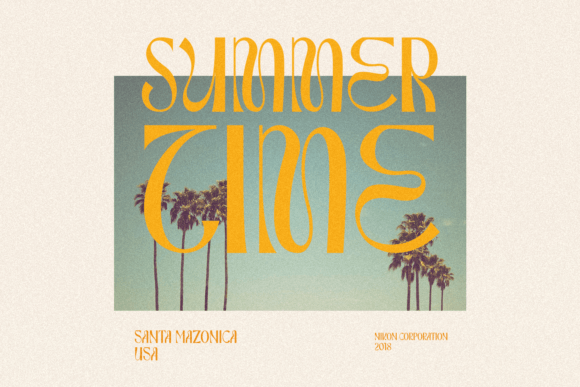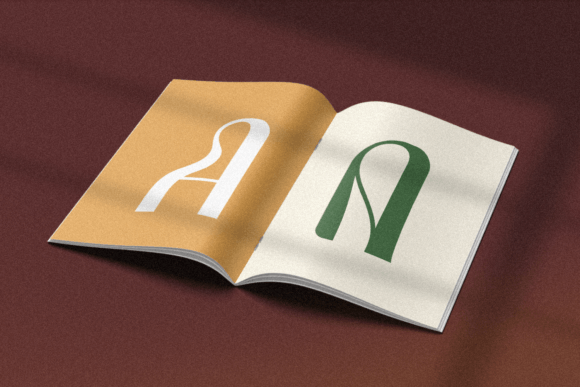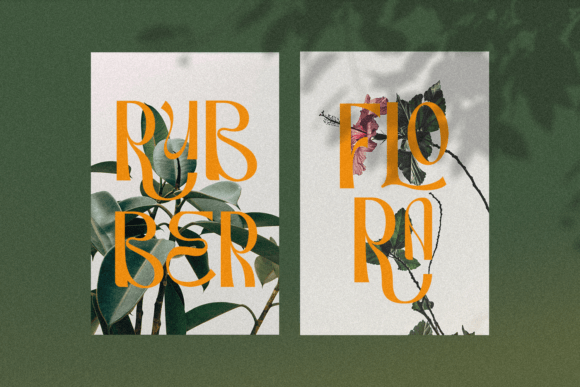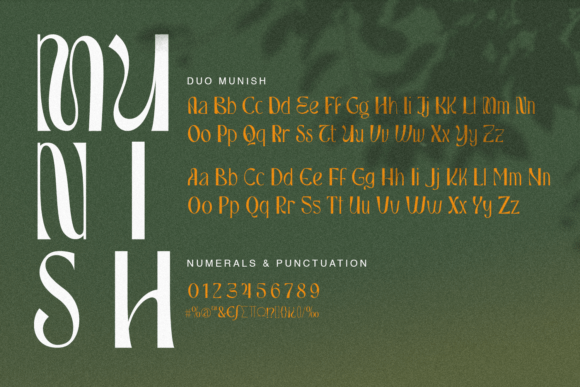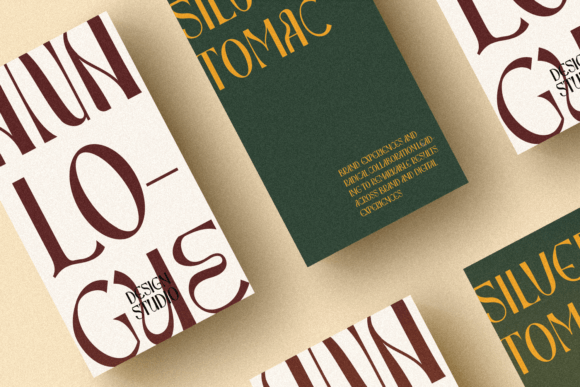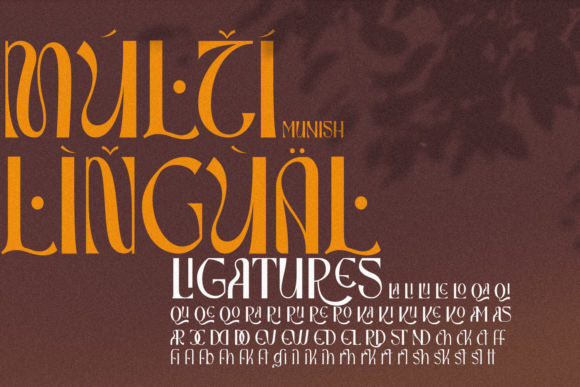
Introduction to Munish Font
Munish is a playful and nostalgic font.
Since it has an exotic calligraphic style, the font will give a classical touch to your projects Remember that the font is PUA encoded, meaning that you can access all the captivating glyphs and swashes effortlessly.
Key Features of Munish Font